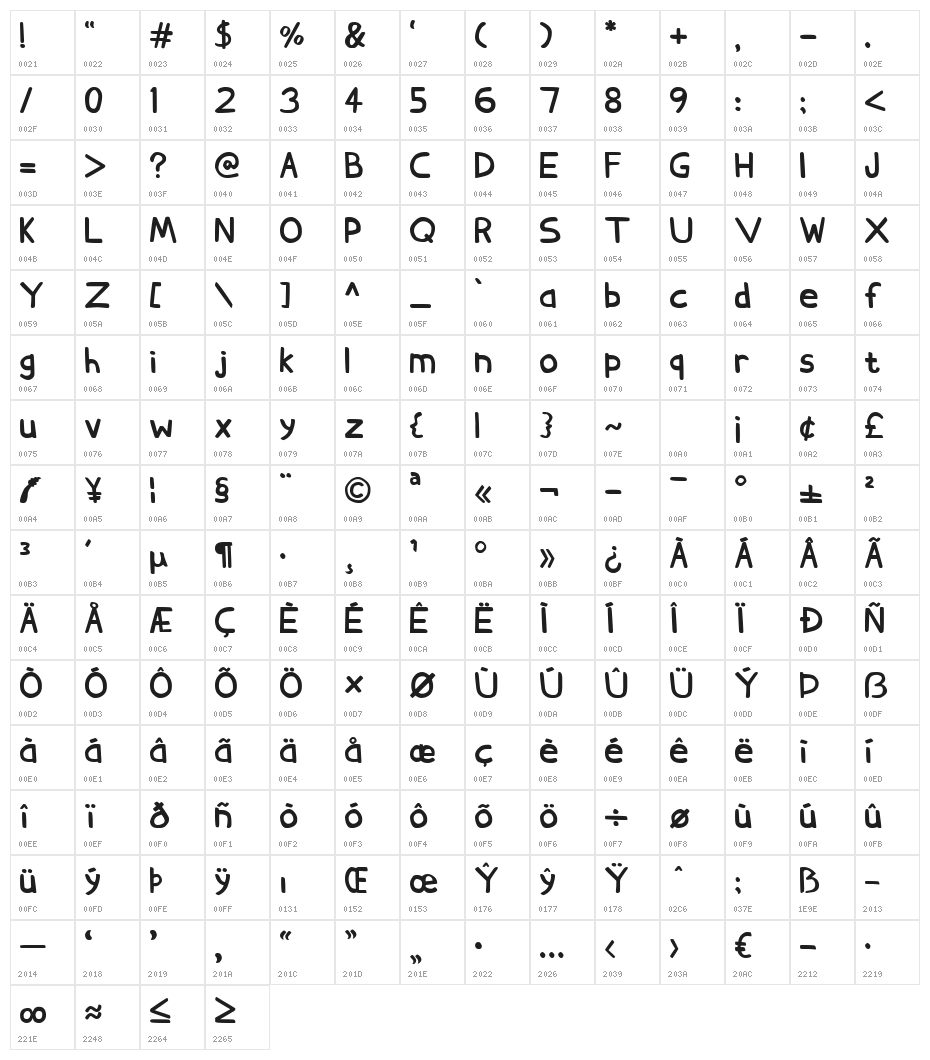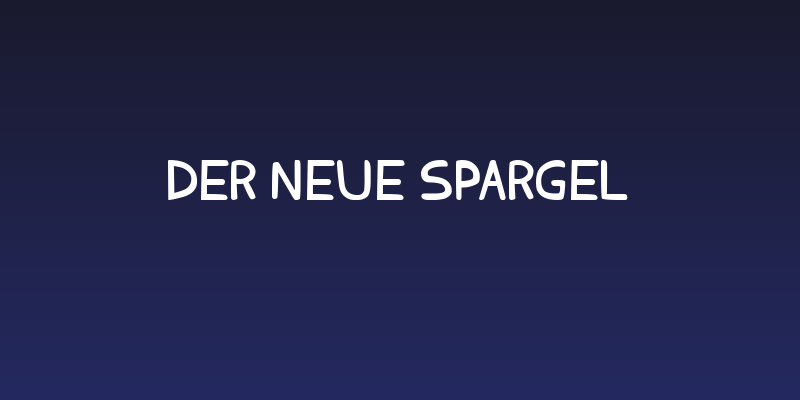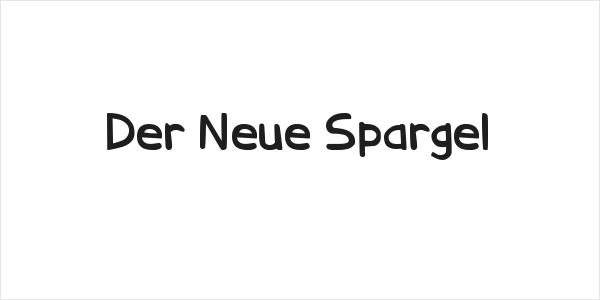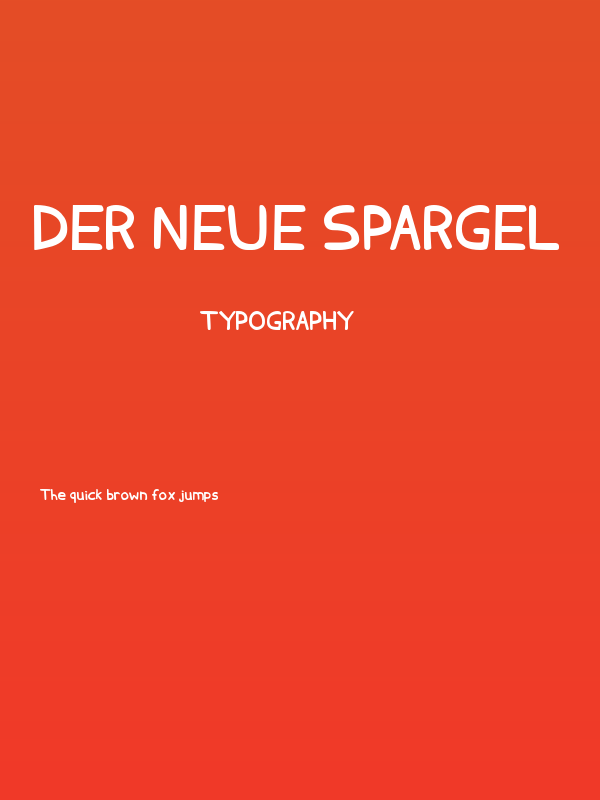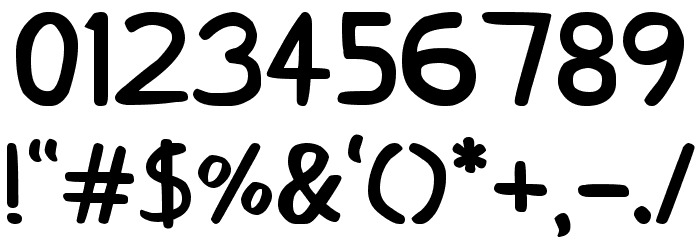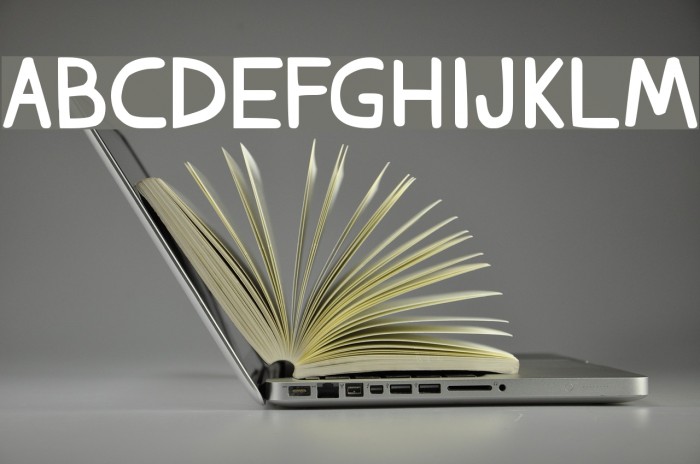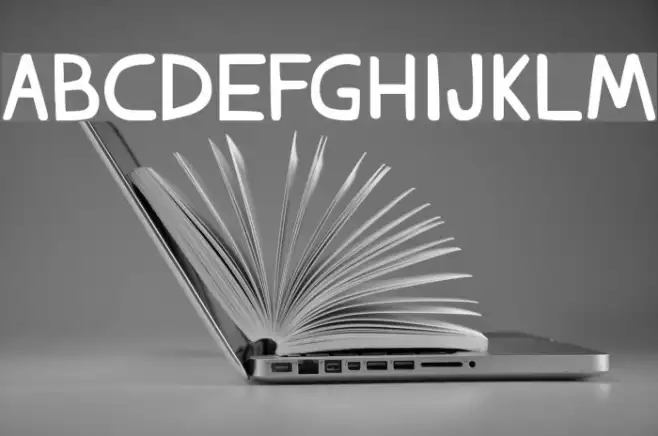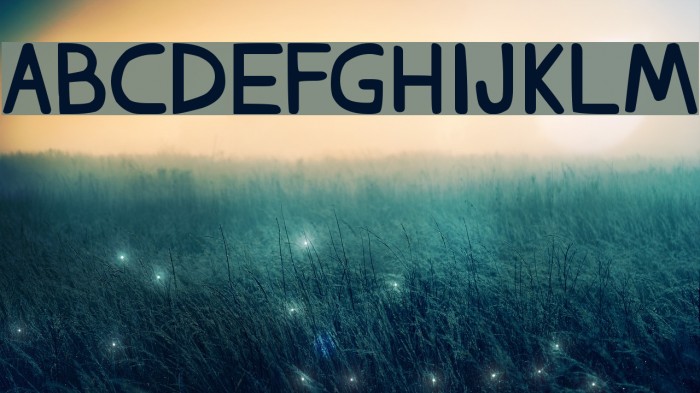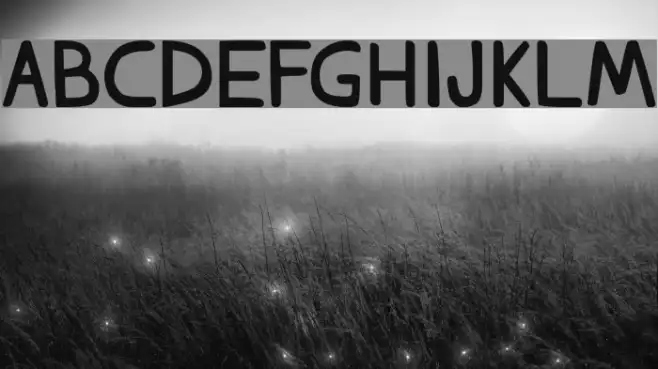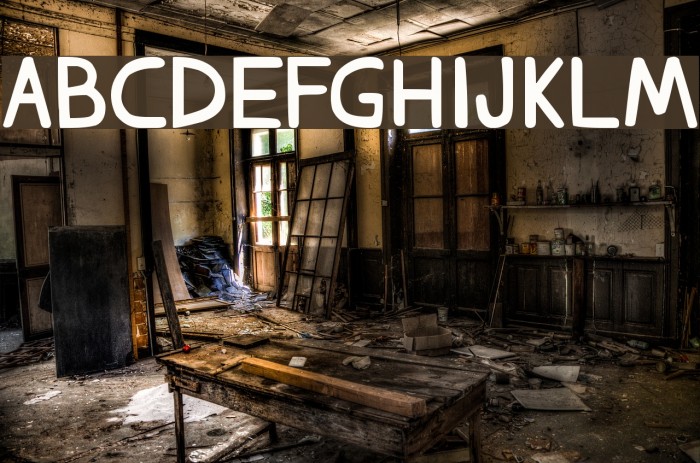
Der Neue Spargel Font
Der Neue Spargel Description
This font features a playful and rounded design, characterized by its smooth, flowing curves and slightly irregular shapes. The letters have a hand-drawn quality, giving them a casual and friendly appearance. The uppercase and lowercase letters maintain a consistent style, with rounded edges and a uniform stroke width. Numbers and special characters follow the same design principles, ensuring a cohesive look across all elements. The font's informal style makes it suitable for projects that require a personal touch or a sense of whimsy.
| Proposed Projects | Ideal for children's books, greeting cards, playful branding, and informal invitations. |